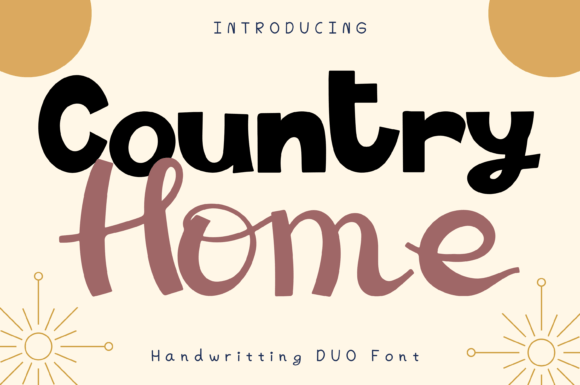
Country Home Duo Style Font
Download Country Home Duo Style Font for free! Created by AchiArt and published by Cheskel Curry, this script font family is perfect for adding a unique touch to your designs.
Introducing the Country Home Duo Style Font - a whimsical and clean handwritten font that will infuse your designs with a touch of rustic charm and legibility. Its eye-catching style and quirky characters are sure to make your projects stand out, whether you're creating logos, branding, invitations, or social media graphics.
With its easy-to-read design, Country Home Duo makes your words shine. Its unique and elegant curves add a personal touch that draws readers in, making it the perfect choice for those who want their designs to captivate and engage.
But what truly sets Country Home Duo apart is its versatility. With its wide range of applications, this font can effortlessly adapt to any project, from rustic wedding invitations and charming social media posts to eye-catching logos and stunning branding materials. It's the perfect font for those who value both beauty and functionality.